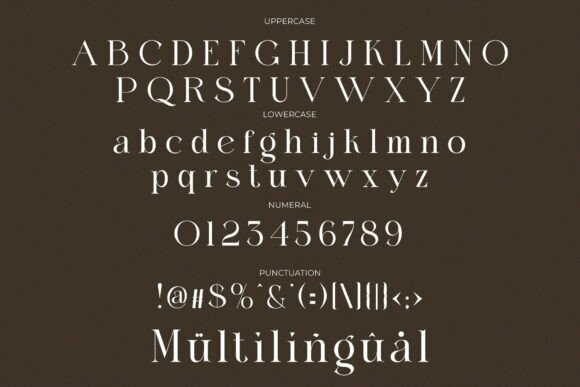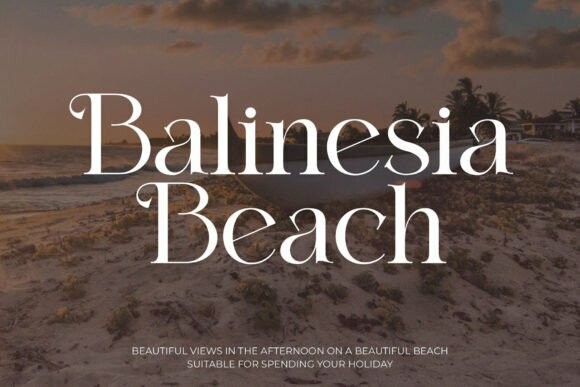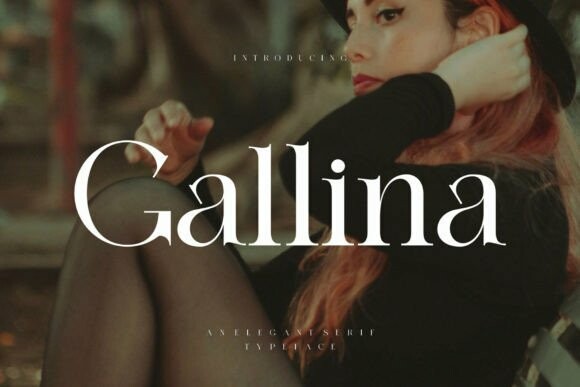
Gallina Font
Designer: Alfinart
Gallina Font – Modern Serif Typeface inspired by the famous minimalist logo perfect for design templates, brochures, videos, advertising branding, logos, invitations, layout designs, elegant crafting, beauty design, and others.